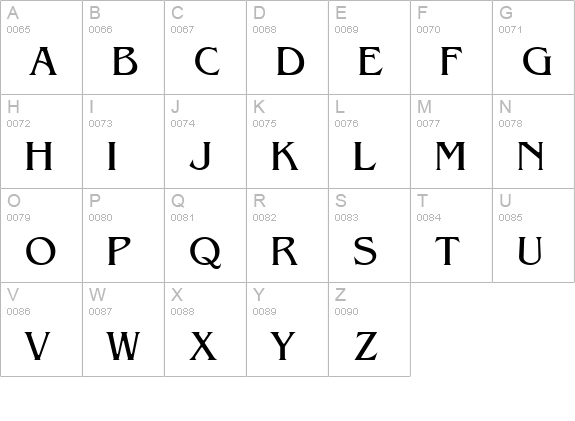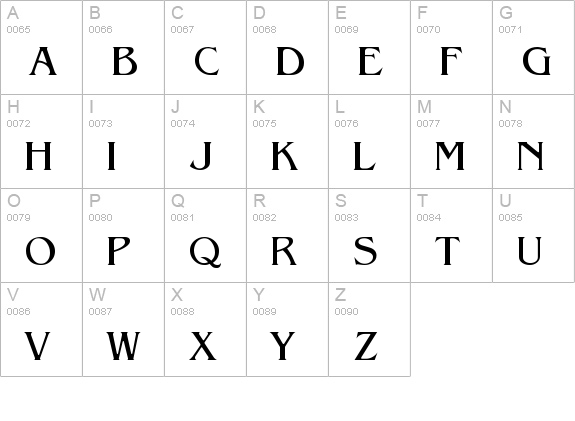
Pegasus Regular Font Details
Pegasus Regular is the standard, neutral variant in the Pegasus typeface family \xE2\x80\x94 well suited to general body text, paragraphs, and standard typographic work.
Pegasus Regular font is a captivating and versatile typeface that effortlessly combines elegance with a touch of modernity. Its graceful and flowing letterforms exude a sense of sophistication, making it the perfect choice for a wide range of design projects. With its balanced proportions and smooth curves, Pegasus Regular font adds a refined and polished look to any text. Whether used for headlines, body copy, or branding materials, this font commands attention and leaves a lasting impression. One of the most remarkable aspects of Pegasus Regular font is that it is freely available to download at FontsMarket.com. This means that designers and creatives can easily access this exceptional font without any barriers. Its accessibility and high quality make it an invaluable resource for both personal and commercial projects. The versatility of Pegasus Regular font is further enhanced by its extensive character set, which includes a wide range of punctuation marks, numerals, and special symbols. This ensures that you can fully express your ideas and convey your message effectively, no matter the language or context. Whether you're designing a logo, creating an eye-catching poster, or crafting a visually stunning website, Pegasus Regular font is a reliable and versatile choice. Its timeless appeal and versatility make it a must-have in any designer's toolkit. Download Pegasus Regular font for free at FontsMarket.com and unlock a world of creative possibilities. Give your designs a touch of elegance and sophistication with this exceptional typeface.